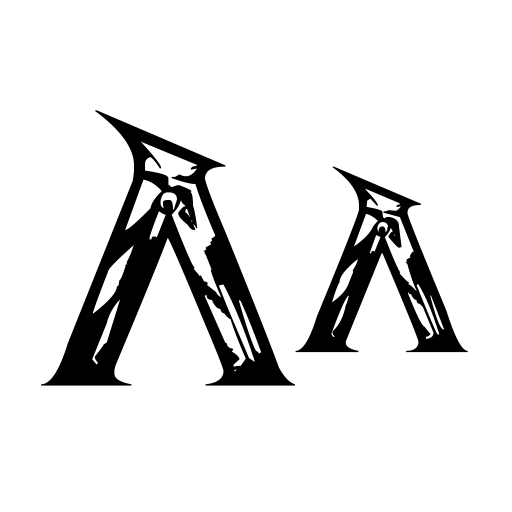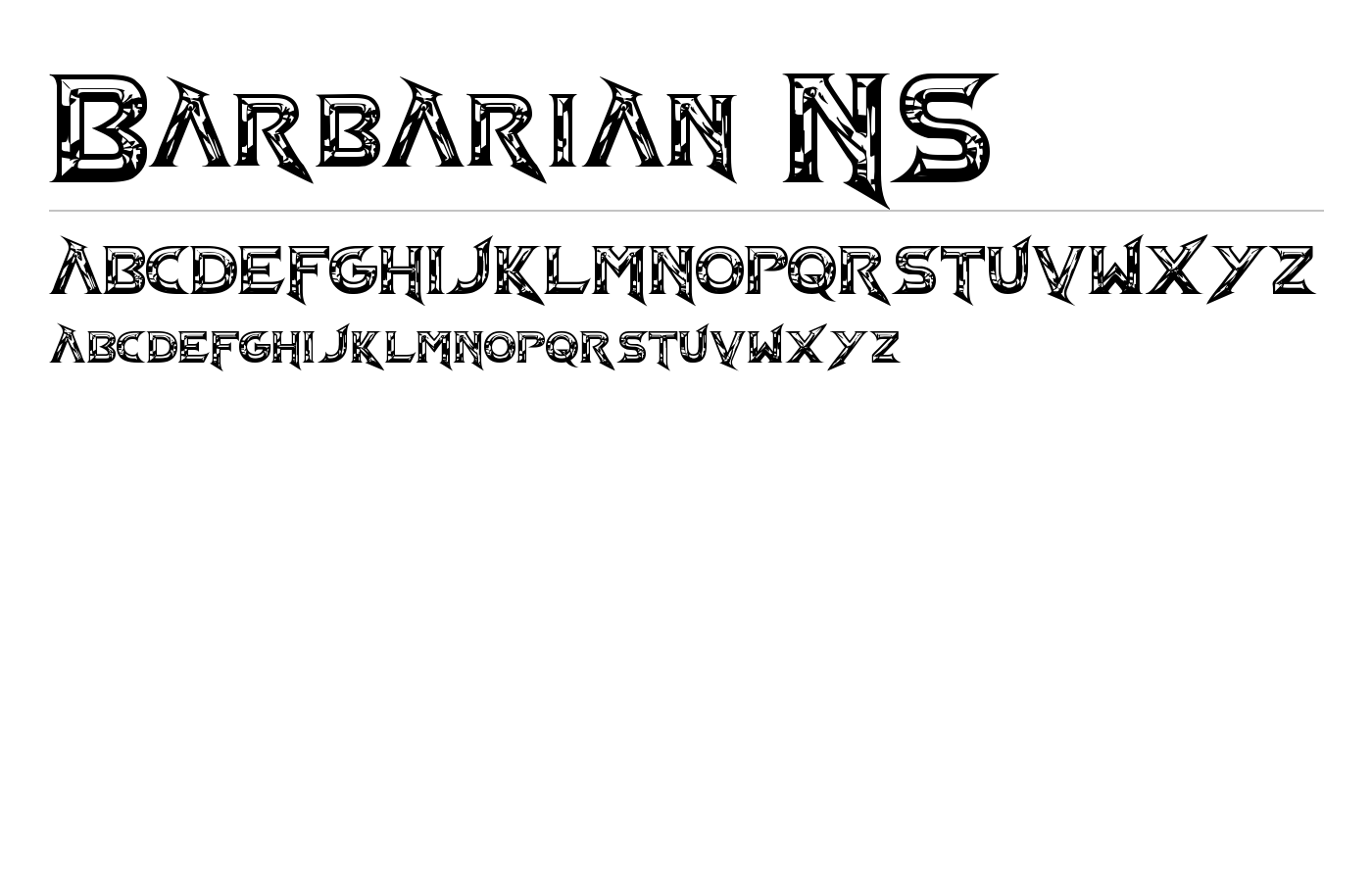
Barbarian NS is a distinctive, decorative serif font with sharp, angular features that evoke a bold, tribal aesthetic. Its medium weight and high contrast strokes create a dramatic and commanding presence, making it ideal for impactful headlines, logos, and creative branding that seeks a strong, adventurous personality. This font works best when used sparingly to draw attention and convey a rugged, primal vibe in design projects.
Barbarian NS Font